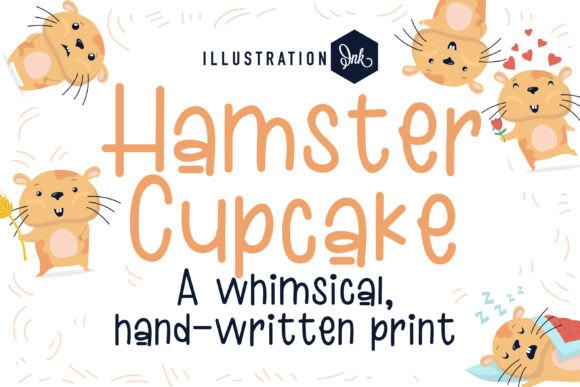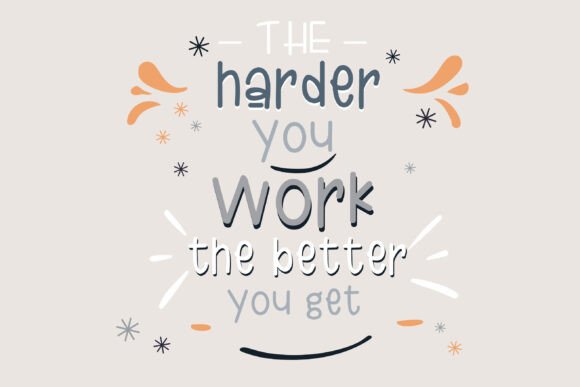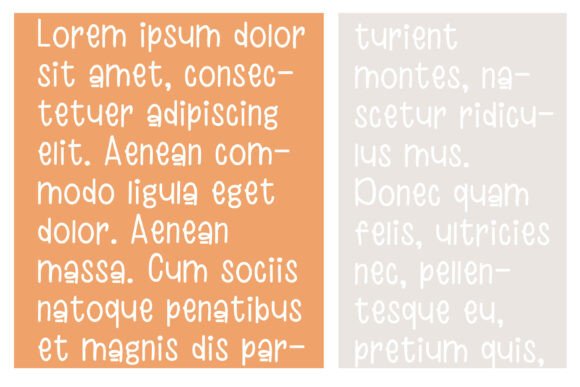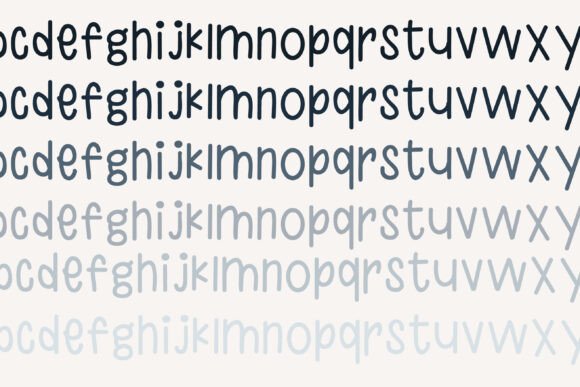
Hamster Cupcake Font
About the Hamster Cupcake Font
Presenting Hamster Cupcake Font, a unique and stylish typeface that will make your work stand out. This hand-crafted font is a youthful and fun print with youthful qualities.
Bold version included.
Hamster Cupcake Font is ideally suited for headlines, short text blocks on packaging, and playful branding projects where a youthful and approachable aesthetic is desired. Its hand-crafted nature makes it less suitable for body text or UI elements where readability over extended lengths is crucial. The bold version adds impact to short, attention-grabbing statements.
This font’s personality is undeniably fun and friendly. It projects a sense of whimsy and approachability. To complement this, pairing it with a clean sans-serif like Open Sans for body copy creates a balanced contrast. Alternatively, a more elegant serif like Merriweather can add sophistication while still allowing the Hamster Cupcake Font to retain its playful character.
For a bolder, more eye-catching combination, consider pairing it with a geometric sans-serif such as Montserrat. This juxtaposition works well for projects requiring both a playful and modern feel. Avoid pairing it with other highly decorative or script fonts, as this might create visual clutter.
Hamster Cupcake Font Usage Examples
Hamster Cupcake Font Example